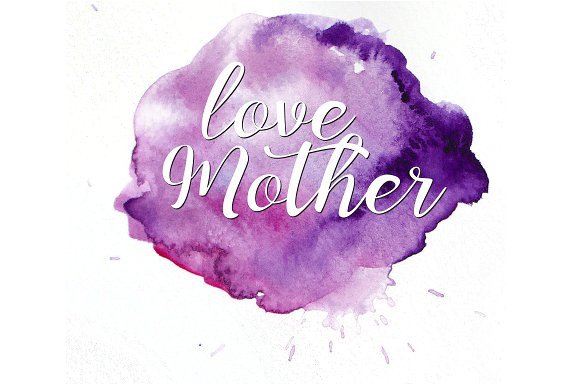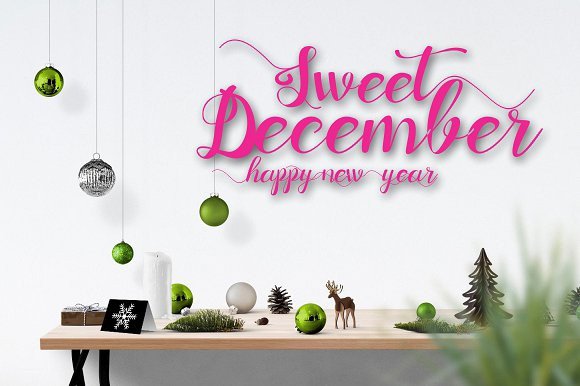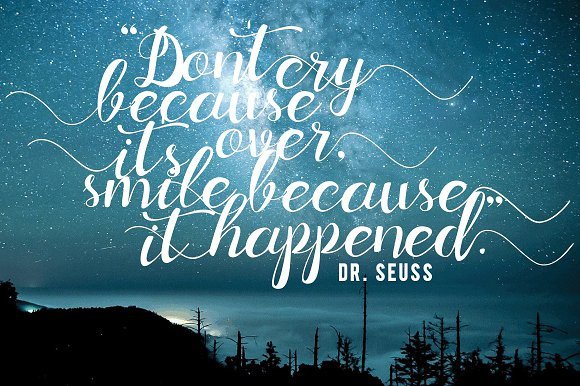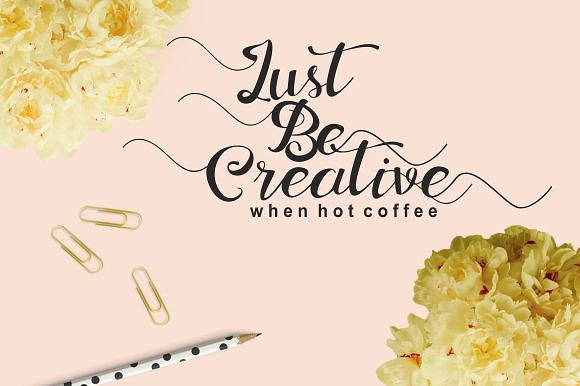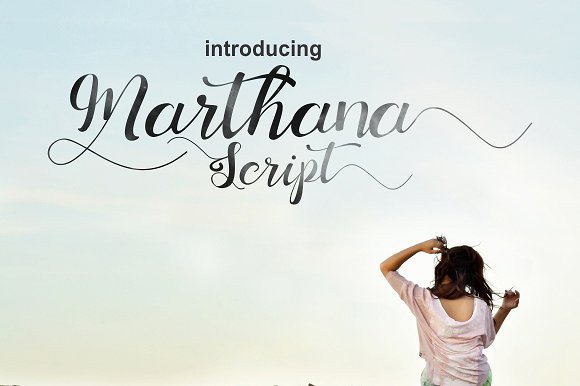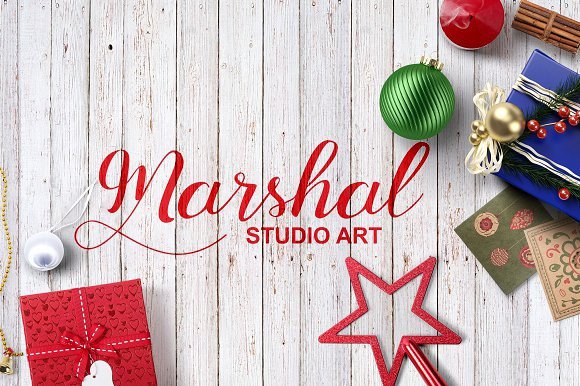
Introduction to Marthana Font
Marthana is an extremely gorgeous, flourished font; this font is a great calligraphy option for a wide range of romantic and special occasion designs.
Key Features of Marthana Font
Why Choose Marthana Font?
Marthana Font offers exceptional quality and versatility, making it a valuable addition to your design toolkit. Whether you’re creating for personal projects or commercial use, Marthana Font delivers professional results.